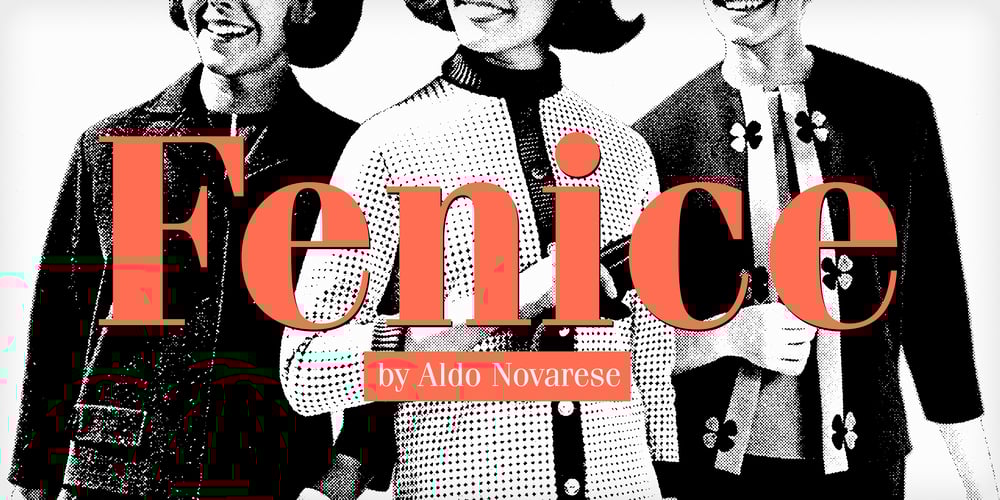
ITC Fenice
ITC Fenice font
ITC Fenice Font Family was designed by Aldo Novarese and published by ITC. ITC Fenice contains 8 styles and family package options. ITC Fenice font (pronounced fe-nee-chay) is the work of designer Aldo Novarese and was influenced by the traditional designs of Didot, Bodoni, and Ibarra. It displays the fine serifs of a Bodoni but blends such characteristics with a contemporary structural style. ITC Fenice font is perfect for applications requiring the economical use of space.